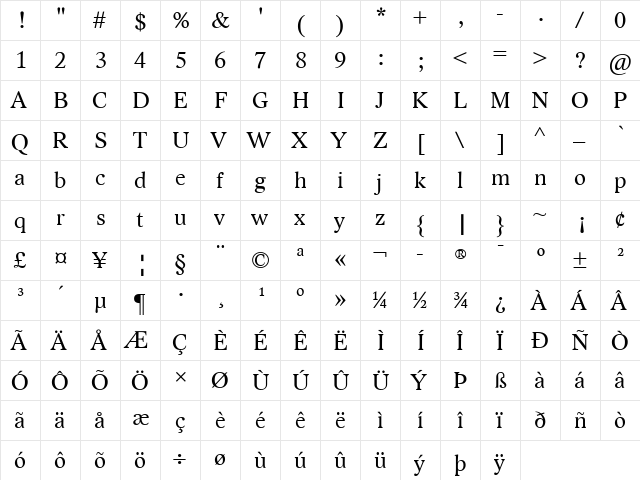
Lido STF Regular
| Designer | Frantisek Storm |
Design Context for Lido STF Typeface
Lido STF offers clean, dependable letterforms without strong stylistic allegiance, making it a practical choice for designers who need flexibility.